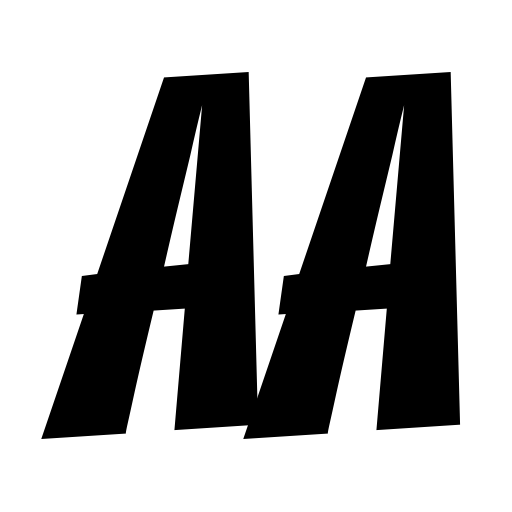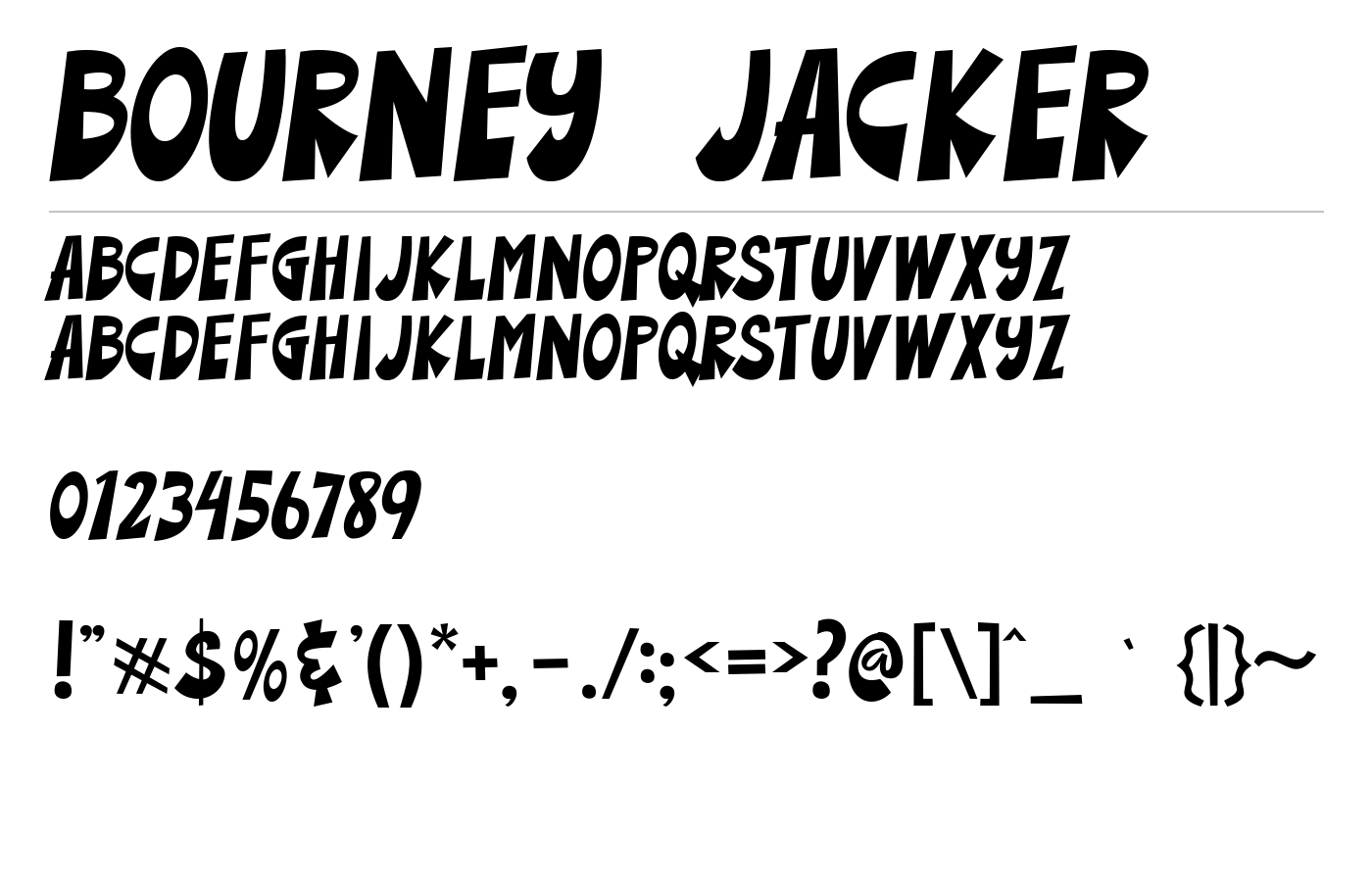
Bourney Jacker is a bold, playful sans serif font with a lively, irregular character shape that brings a fun and energetic vibe to any design. Its slightly condensed width and strong, sharp angles make it ideal for eye-catching headlines, posters, and creative branding where a distinctive, dynamic look is needed. This font works especially well for projects that want to convey excitement and personality with a modern, informal touch.
Bourney Jacker Font